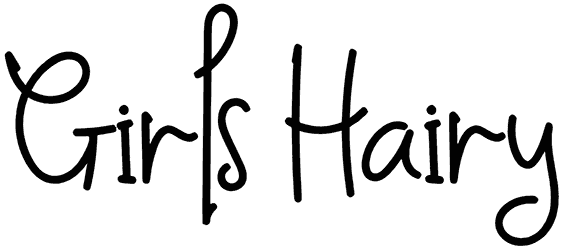
Girls Hairy Font
If you need a cute and modern letterform for your new layout, this cheerful handwritten font will be a great option. You have all the characters of this sweet and natural script font. Girls Hairy font is going to throw an eye-catching vibe into your intended designs, such as a kids’ party invitation card or a casual Instagram story.